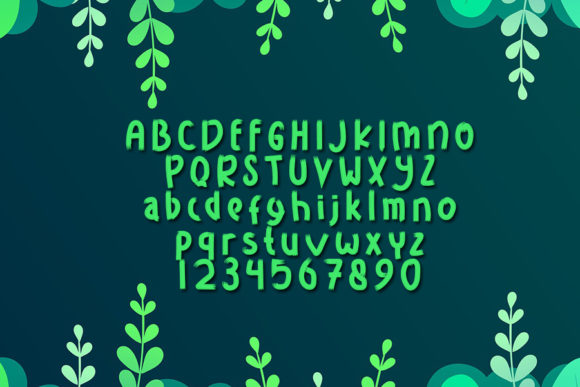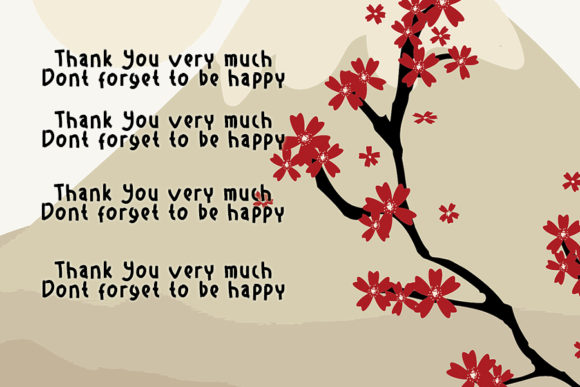
Find Your Perfect Harmony with Home Bamboo Font
There’s nothing quite like the feeling of getting lost in a creative project, surrounded by scribbled notes, scattered papers, and a dash of uncertainty. But then, it happens – that one ‘aha’ moment when everything falls into place, and your vision begins to take shape. For designers, this feeling is music to their ears, and the right font can be the perfect accompaniment.
Enter the Home Bamboo Font, a playful display font that’s as readable as it is visually striking. Its thick, chunky letters are a delight to work with, adding a touch of warmth and personality to any project. Whether you’re designing a logo, a poster, or a website, the Home Bamboo Font is sure to add a unique touch that sets your work apart.
With its versatility and charm, the Home Bamboo Font is a valuable addition to any designer’s toolkit. It’s the perfect choice for those looking to add a bit of whimsy and fun to their designs, without sacrificing readability or professionalism.
Home Bamboo Font Key Features
- Font Family: Home Bamboo Font is a unique, hand-drawn sans-serif font family designed to evoke a sense of warmth and coziness.
- Font Size: Home Bamboo Font is available in 6 weights, ranging from Light to Extra Bold, providing flexibility for various design applications.
- Unique Characteristics: Home Bamboo Font features a distinctive, hand-drawn aesthetic with subtle texture and imperfections, giving it a natural, organic feel.
- Character Set: Home Bamboo Font includes a comprehensive character set, including Latin, Cyrillic, and Greek alphabets, as well as punctuation marks and symbols.
I’ve had the chance to work with the Home Bamboo Font, and I must say, it’s a unique and interesting choice. Here’s my honest take:
- Organic feel: The font has a natural, earthy vibe that can add a lot of character to designs.
- Legibility: Despite its unconventional design, the font is surprisingly easy to read.
- Customization options: The font comes with a range of styles and weights, giving you plenty of flexibility.
- Overuse risk: The font’s unique style can become overwhelming if used too extensively.
- Limited versatility: While the font is great for certain projects, it may not be the best choice for more formal or technical designs.
Overall, I think the Home Bamboo Font is a great addition to any designer’s toolkit. It’s perfect for projects that need a touch of personality and whimsy. However, it’s essential to use it judiciously and consider the potential limitations. With careful application, this font can elevate your designs and add a unique touch to your work.
- Use it in combination with other Asian-inspired design elements.
- Pair it with a clean and minimalist design aesthetic for maximum impact.
Home Bamboo Font is commonly used in:
- Asian-inspired design projects.
- Minimalist branding and marketing materials.
- Food and wellness packaging and labeling.
Comparison to Home Bamboo Font: While both fonts have a natural, organic feel, Pacifico is more refined and polished, making it suitable for high-end designs. Home Bamboo Font is more playful and casual.